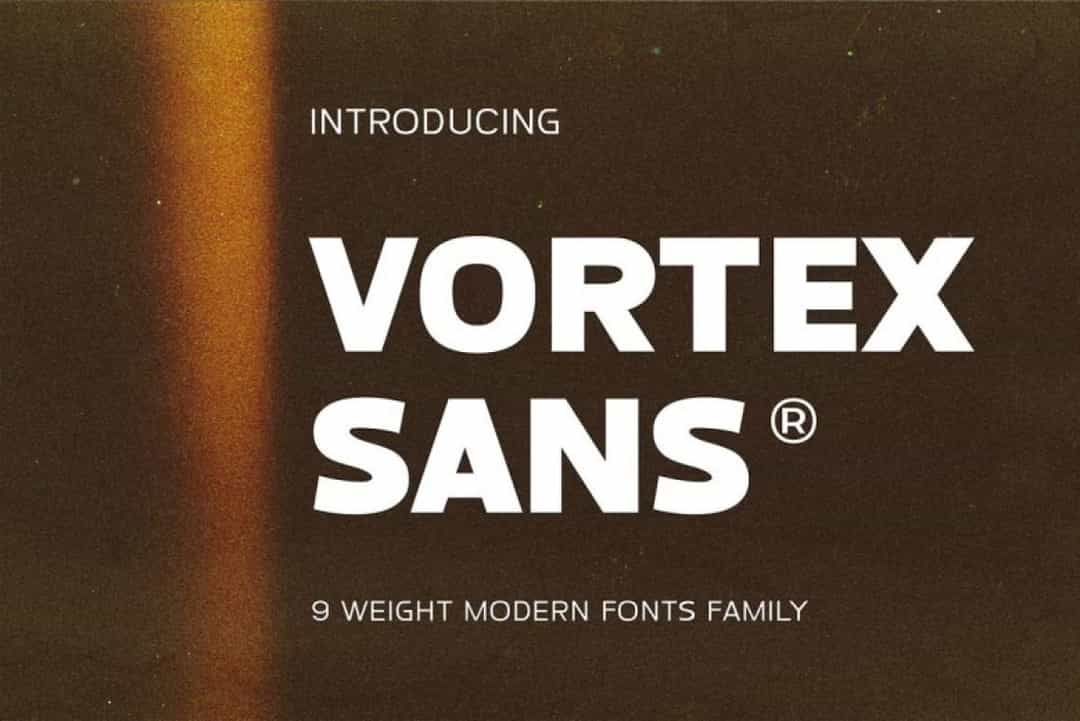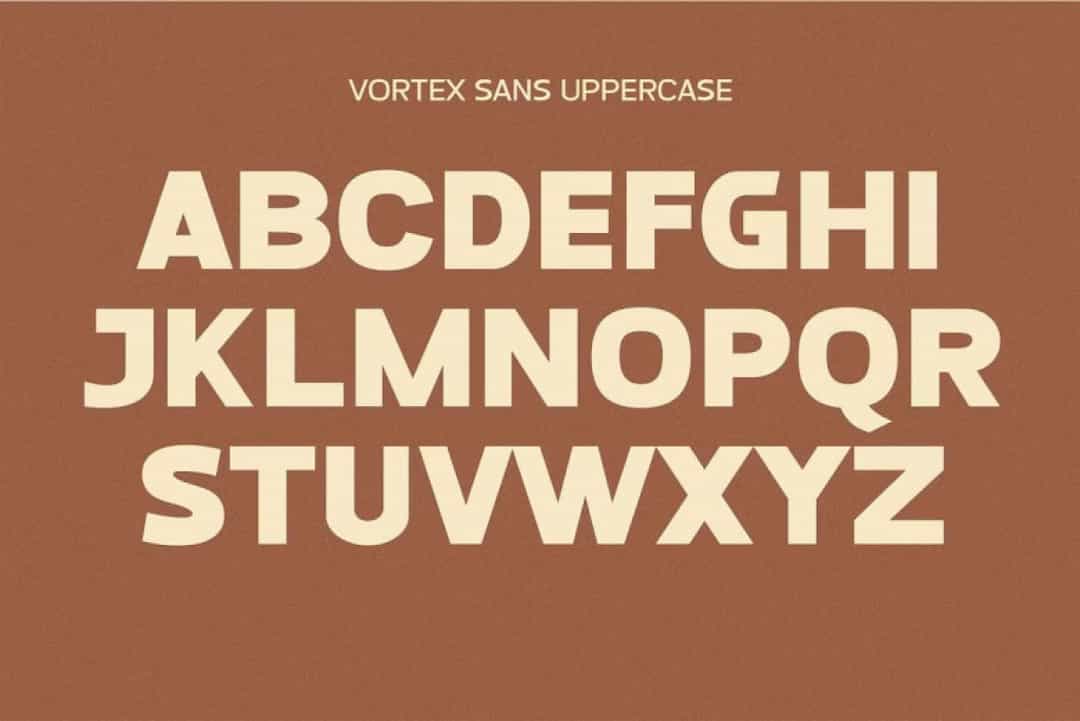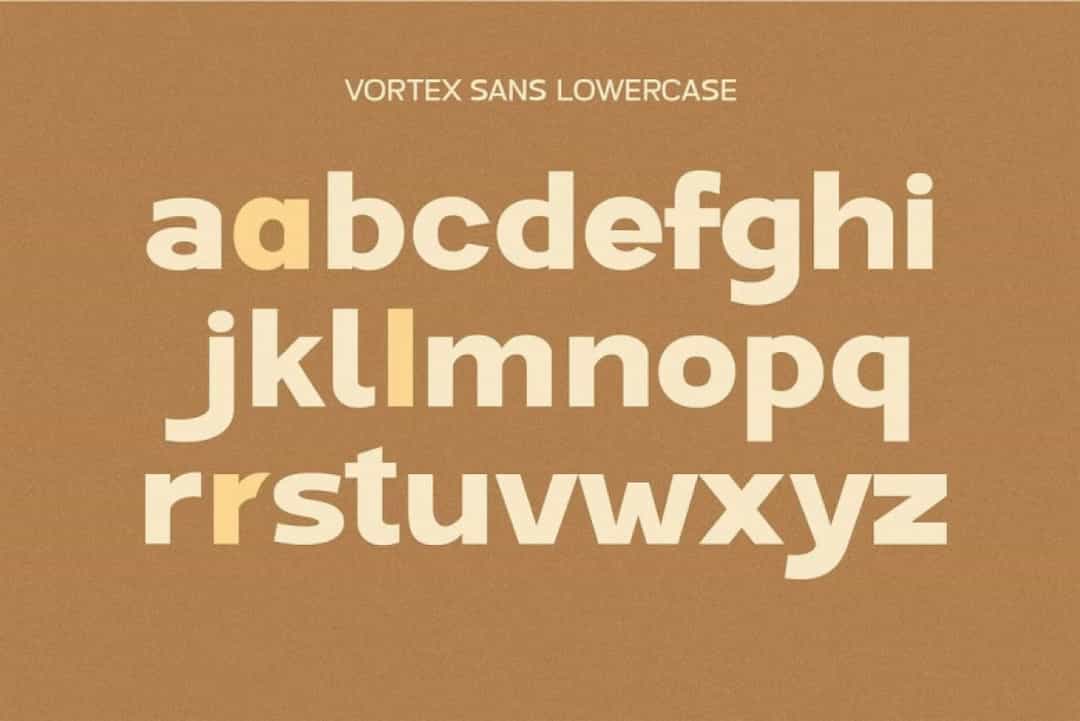
Be retro with Vortex Sans, an eye-catching retro font featuring additional Opentype alternative ligatures and optional ligatures that add life. Created to bring some of that retro spirit of the 70’s and 80’s design back into modern day design, Vortex Sans can further be enhanced by widening spacing of letters for larger text or just leaving as is for small body type fonts.